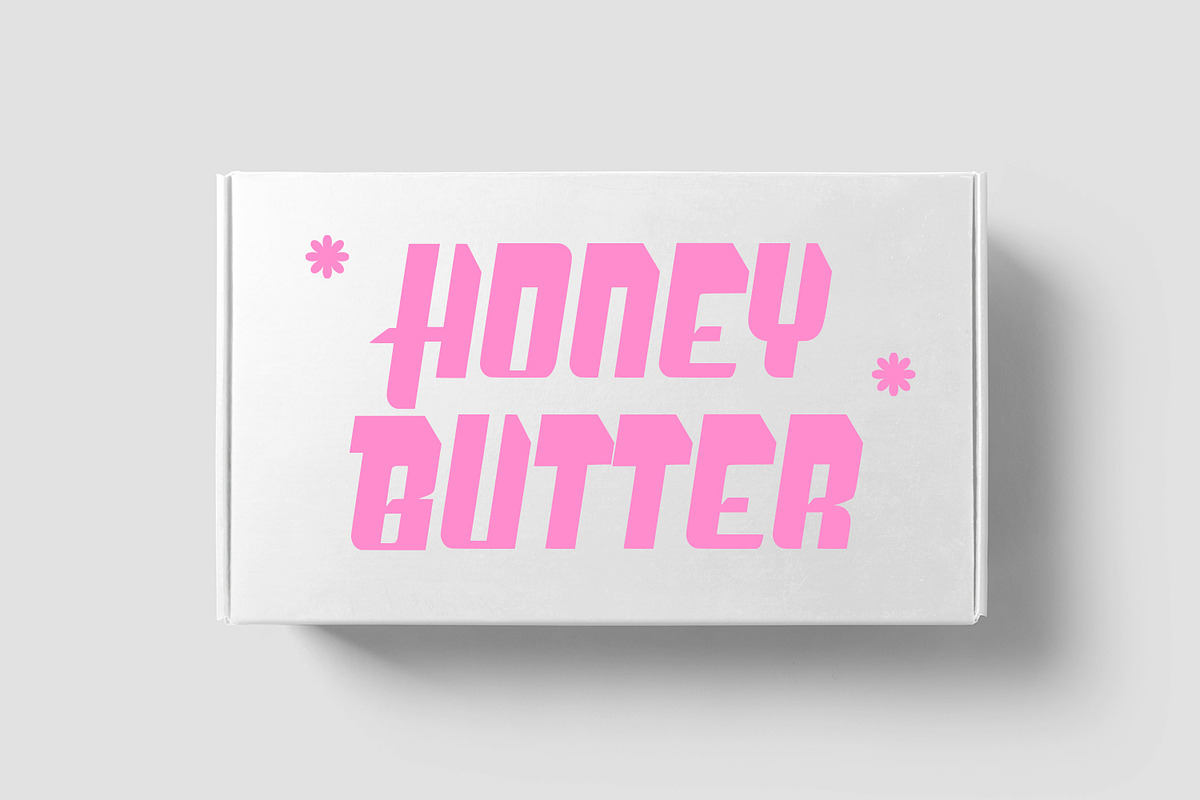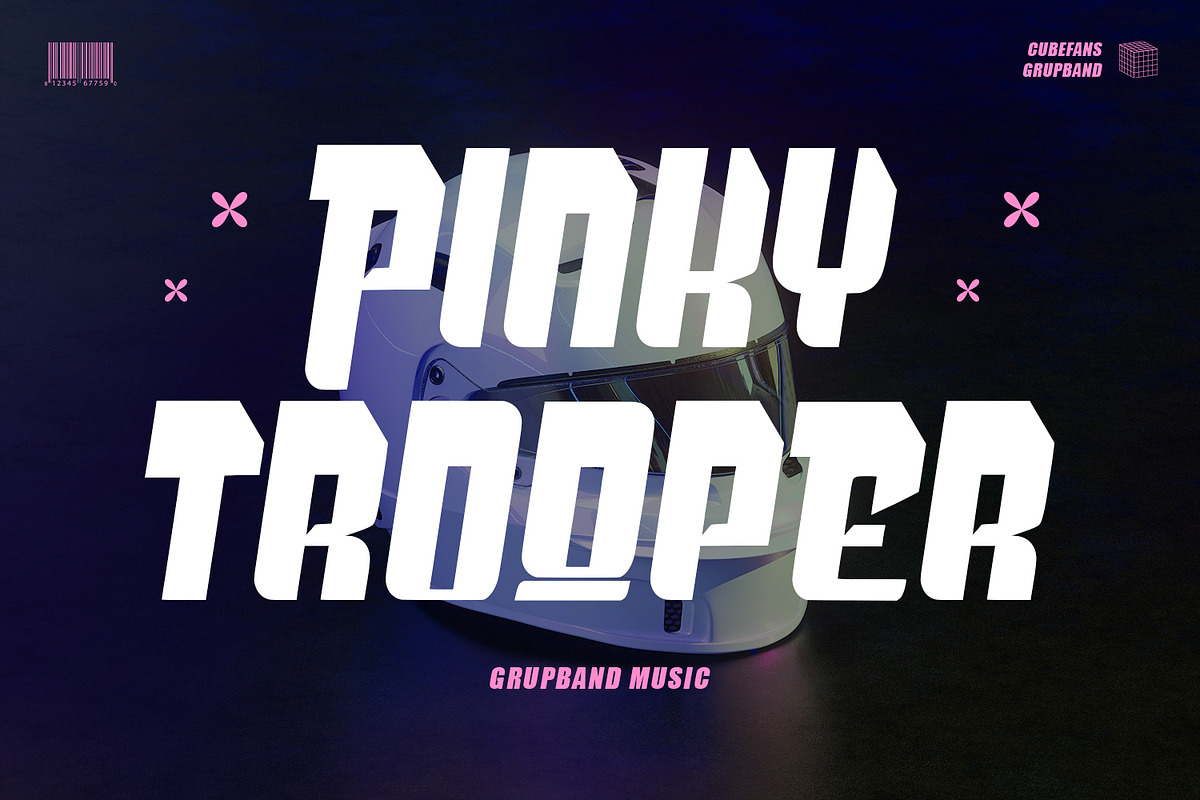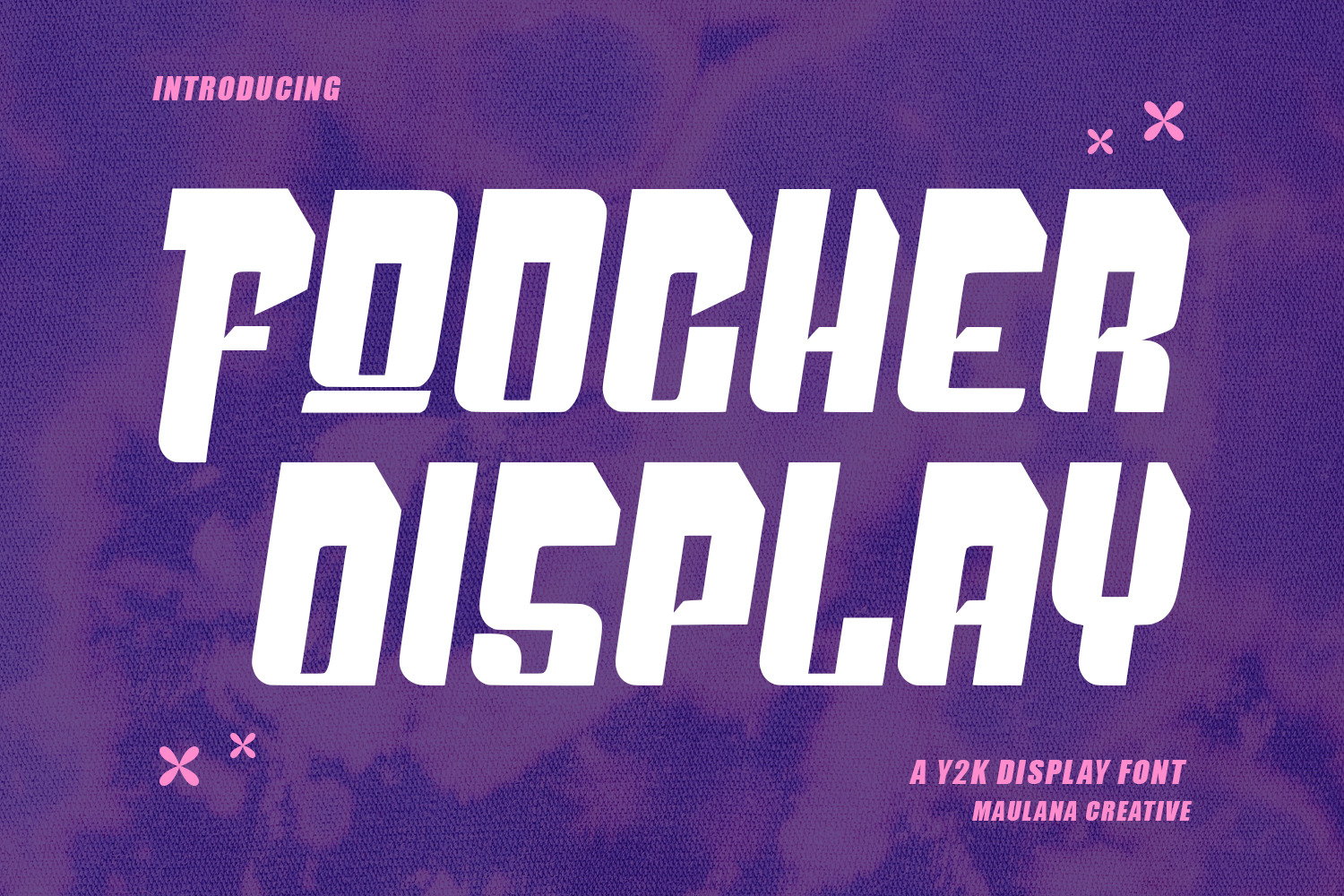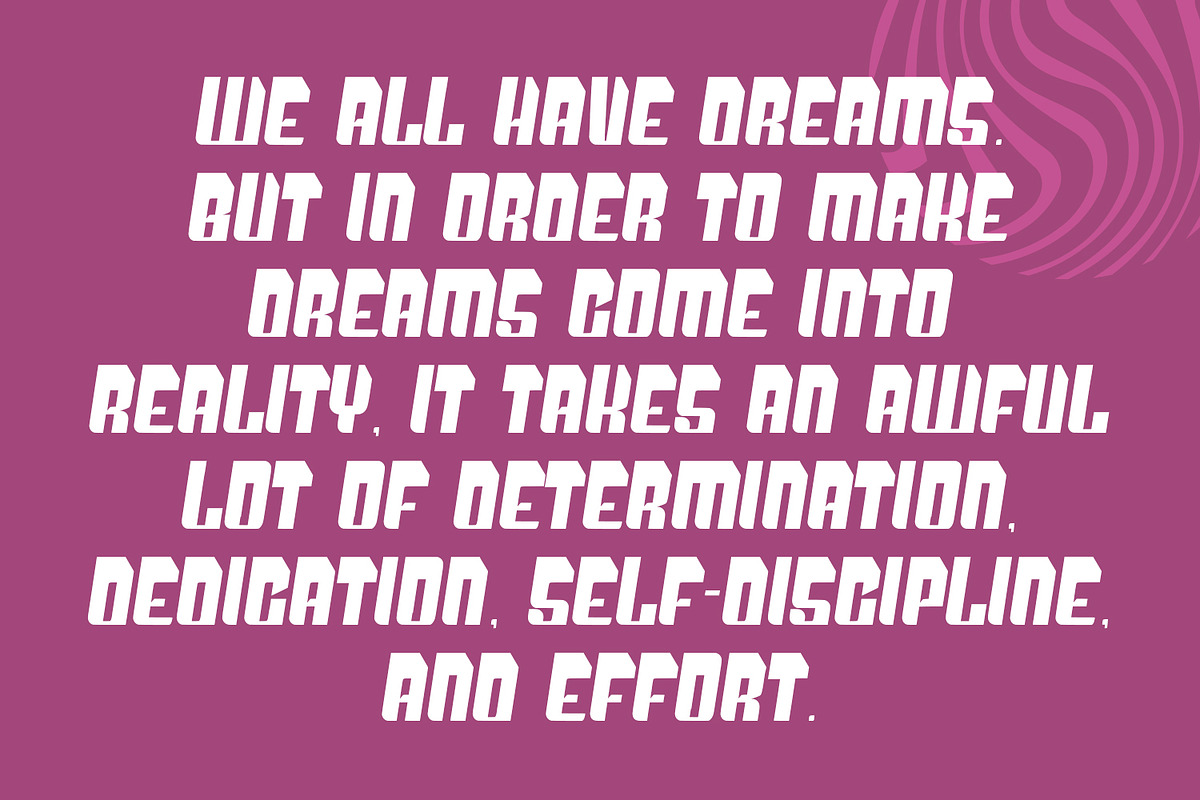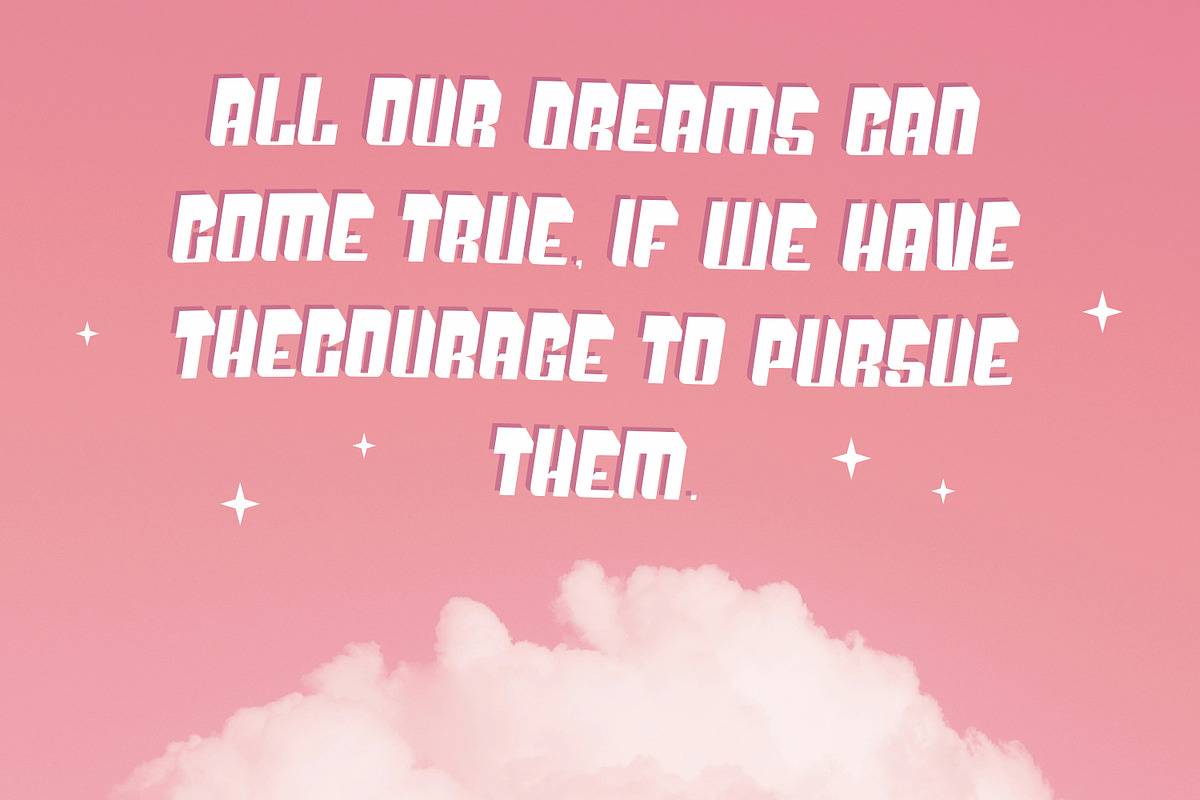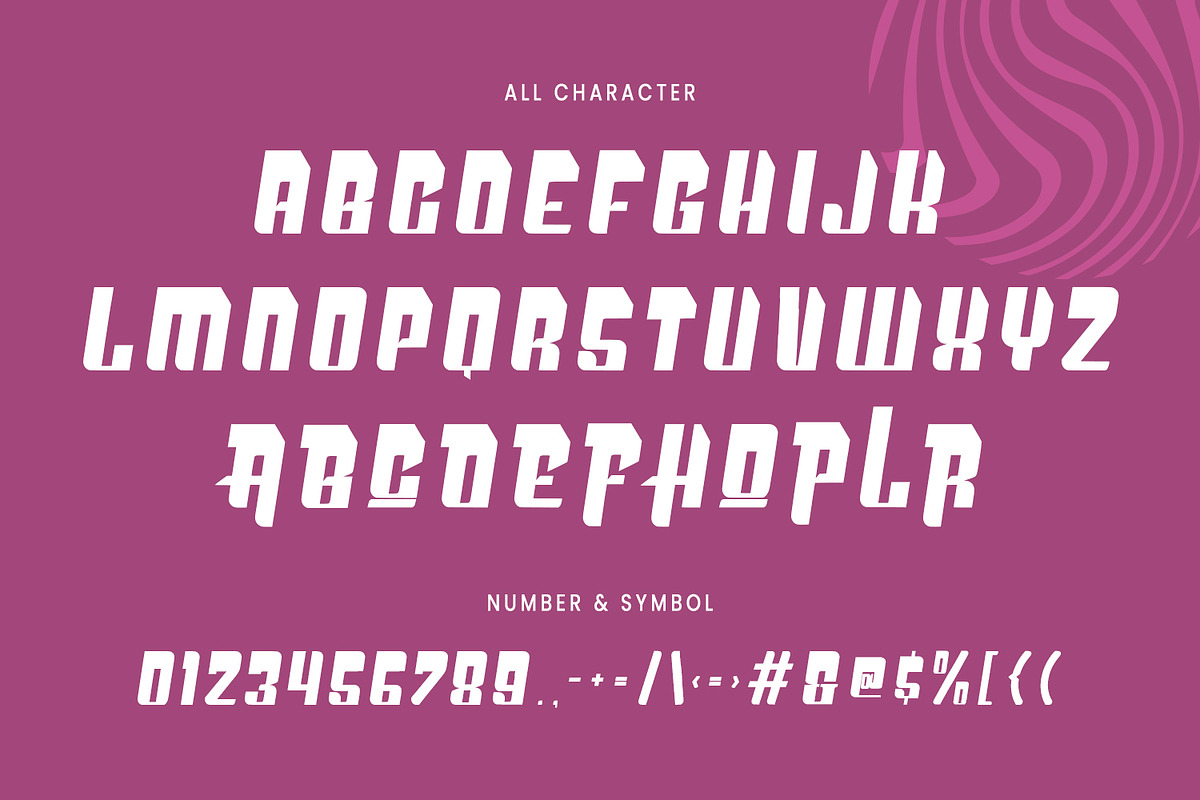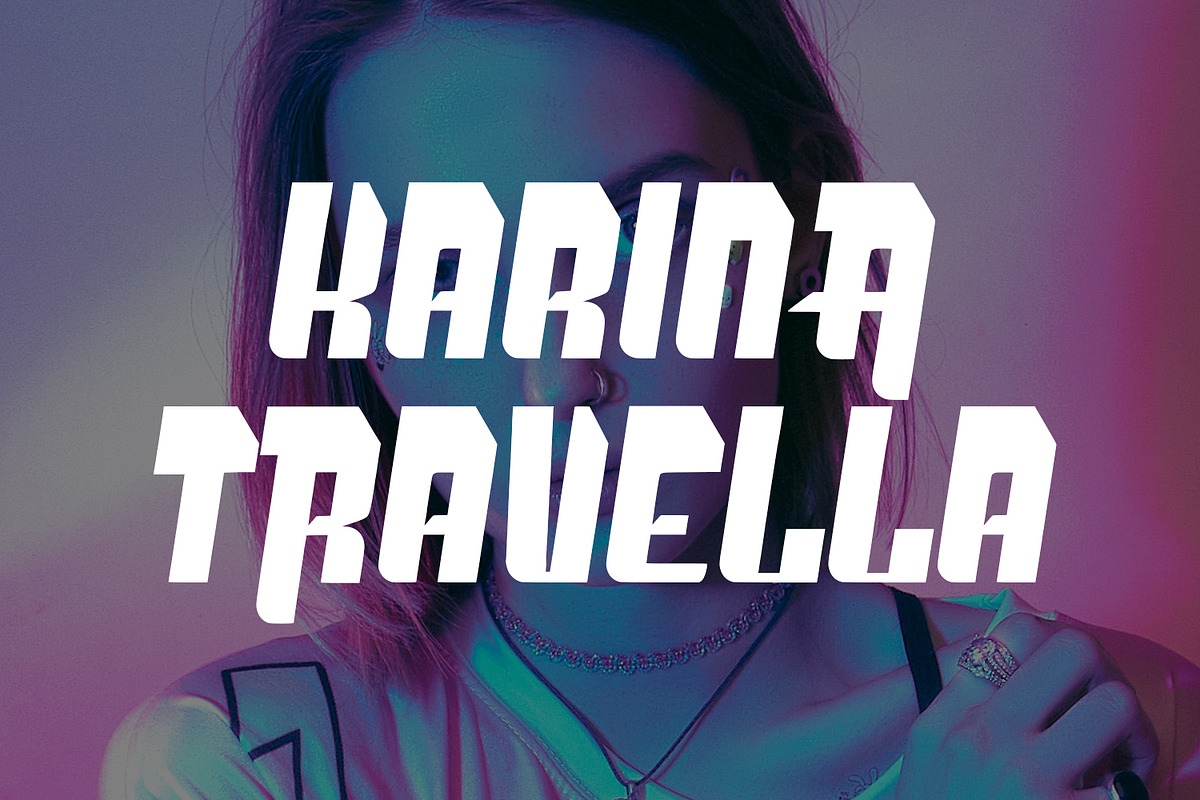
Foocher Y2k Display Font
Foocher y2k display font is a modern font. With bold stroke, fun character with alternates. To give you an extra creative work. Foocher font support multilingual language. This font is good for logo design, Social media, Movie Titles, Books Titles, a short text even a long text letter and good for your secondary text font with sans or serif. Make a stunning work with Foocher font.